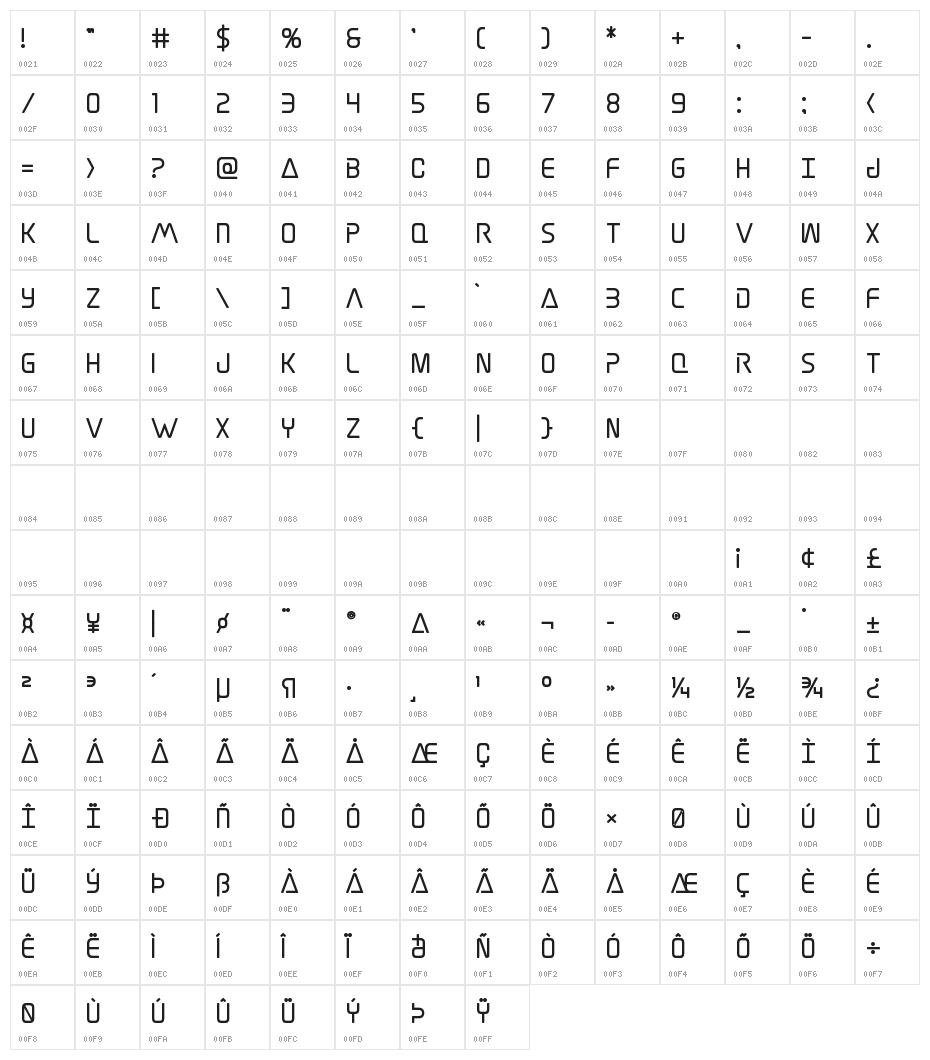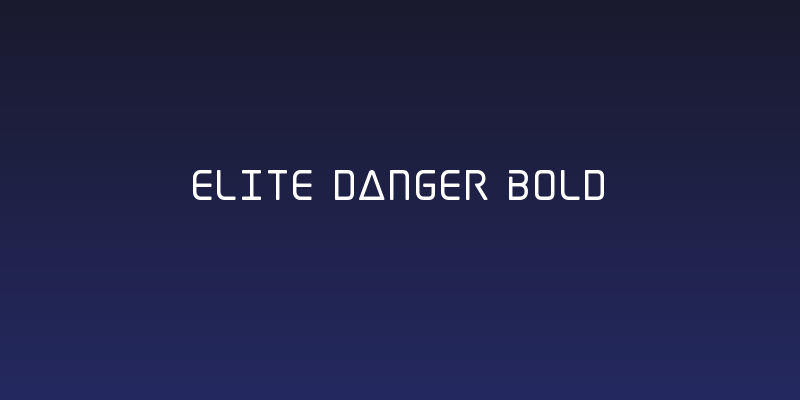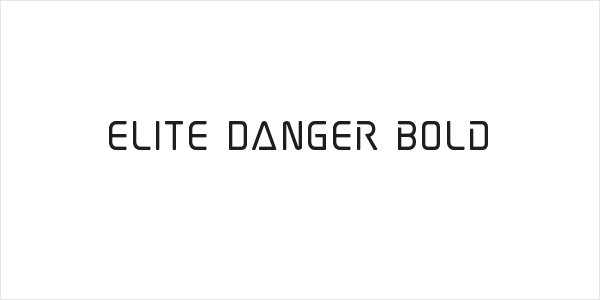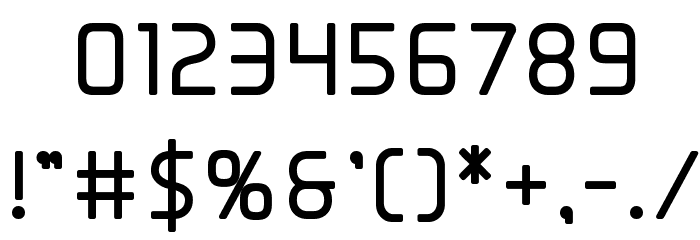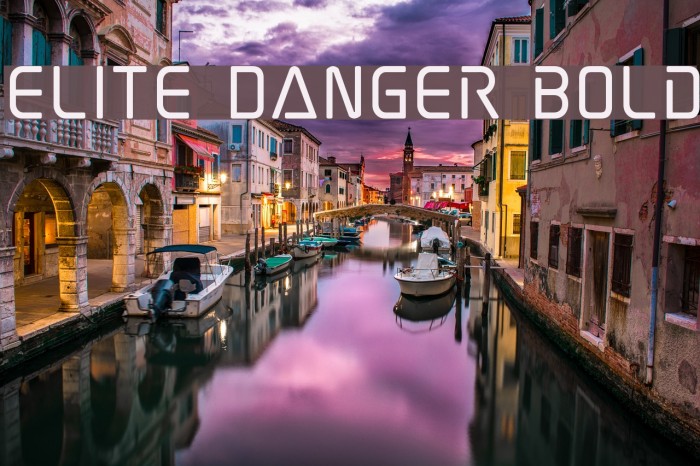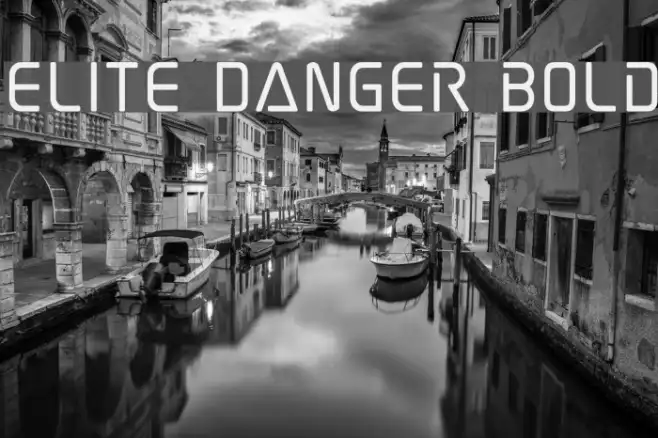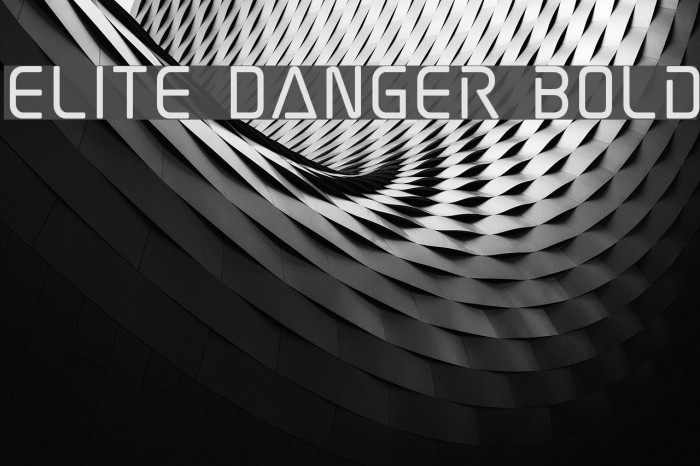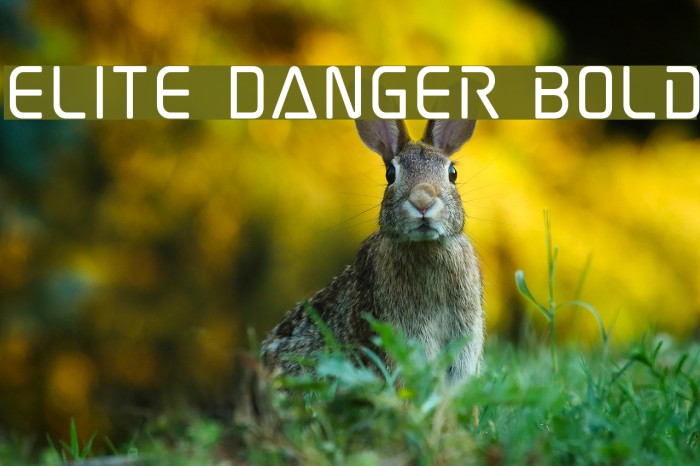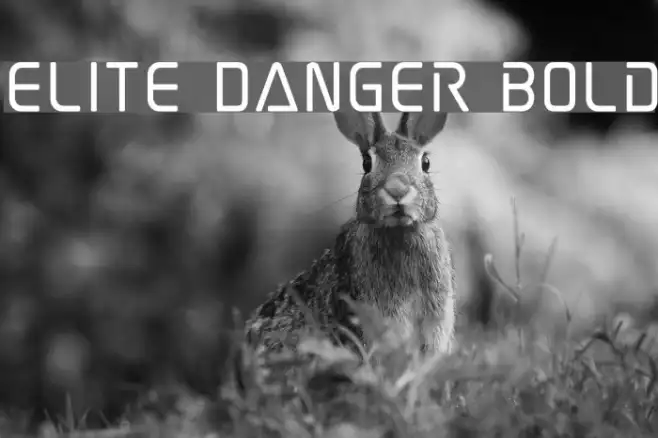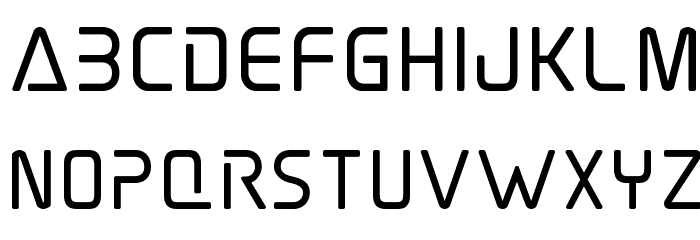
Elite Danger Bold Font
Elite Danger Bold Description
This font features a futuristic and geometric design with clean, sharp lines and a modern aesthetic. The characters are uniformly structured, with a consistent stroke width that gives it a bold presence. The uppercase letters are distinct with angular shapes, while the lowercase letters maintain a similar geometric style. The numerals are clear and legible, matching the overall design. Special characters are included, complementing the font's sleek and contemporary look. This font is ideal for projects that require a modern and cutting-edge appearance.
| Proposed Projects | Ideal for technology branding, sci-fi themed designs, video game interfaces, and modern advertising. |